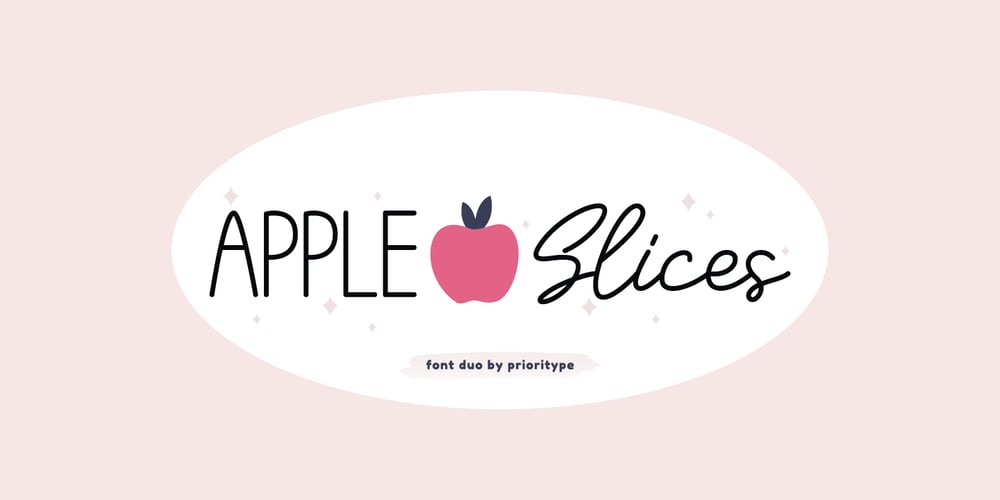
Apple Slices
Apple Slices font
Apple Slices Font Family was designed by Prio Nurokhim Aji and published by Prioritype. Apple Slices contains 2 styles and family package options. It’s a mix of two simple fonts that can make your design projects amazing. You could say that it is beautiful and eye-catching for this one font. You can apply it to branding designs, social media posts, logos, posters, quotes, food menus, wedding invitations, book covers, video content etc. See some of the previews above for reference.Features:-Uppercase-Lowercase-Numeral-Punctuation-Multilingual-PUA Encoded-Opentype FeaturesThanks.